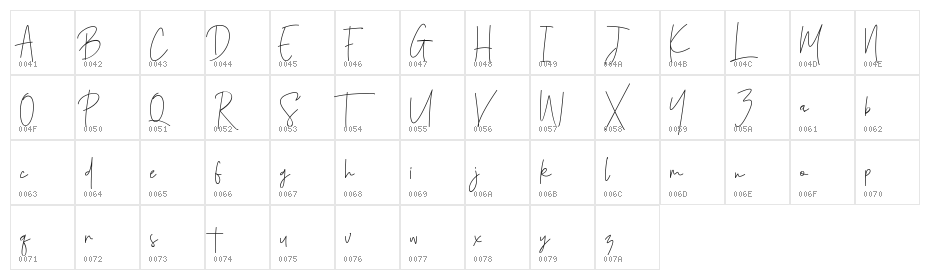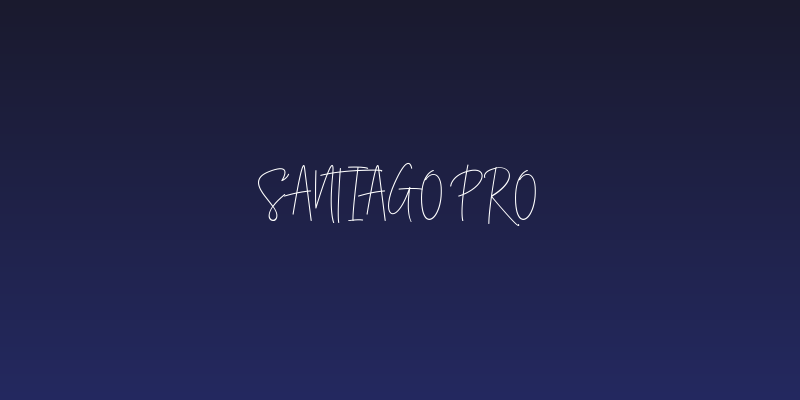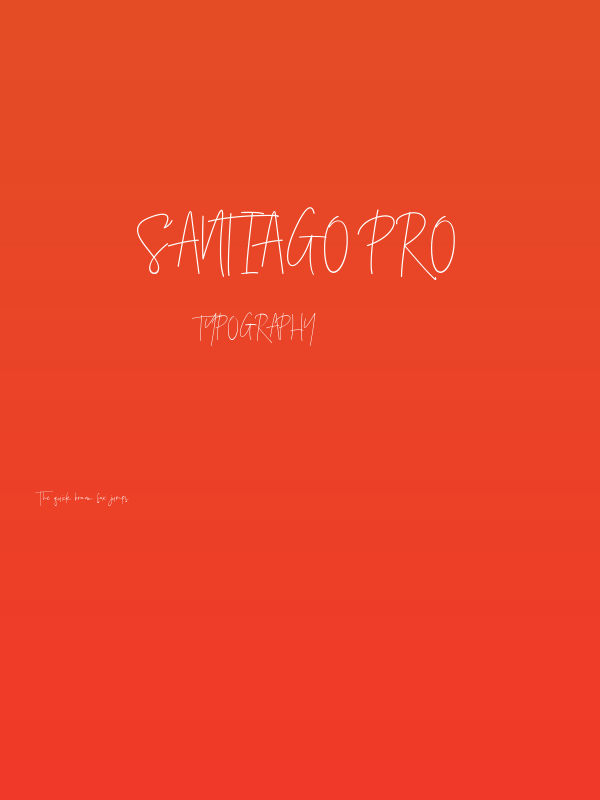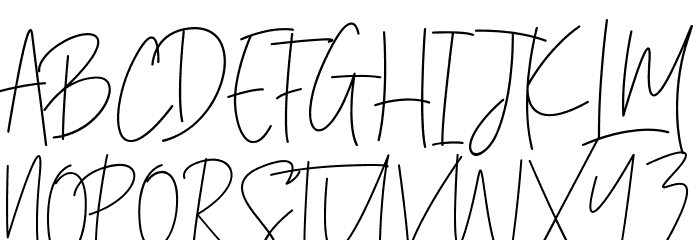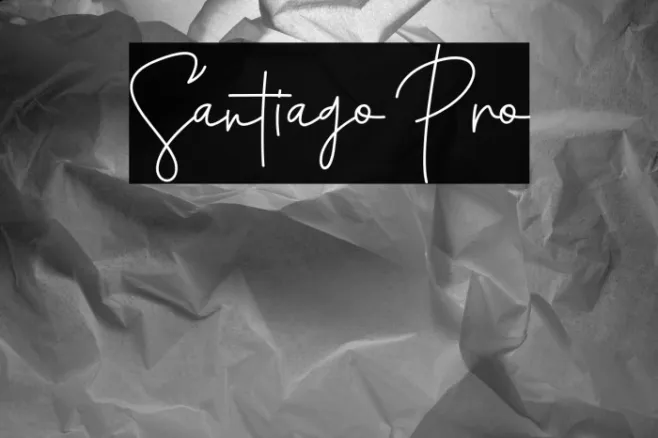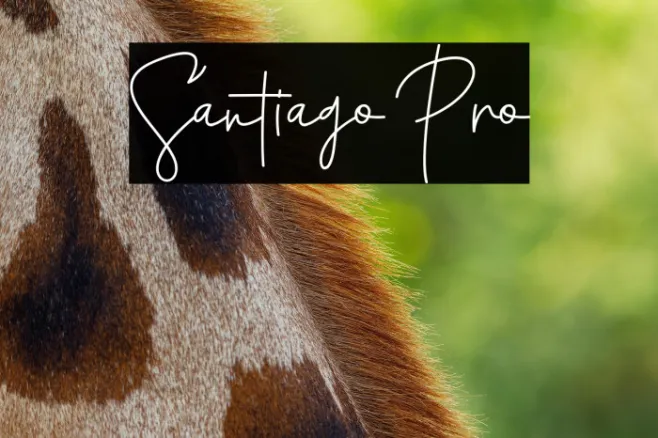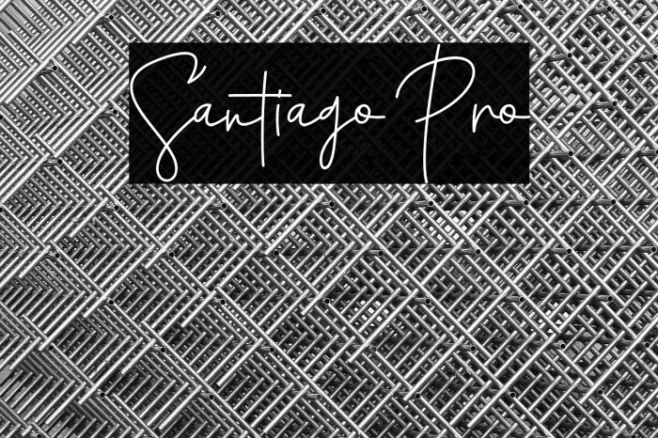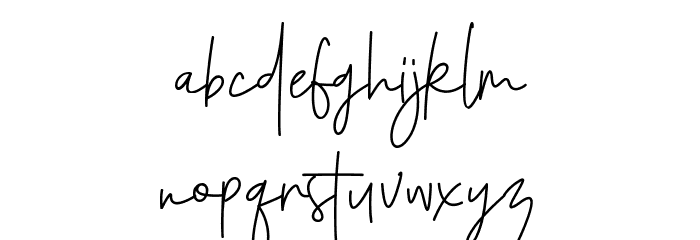
Santiago Pro Font
Santiago Pro Description
This font features a unique, handwritten style with a playful and artistic flair. The uppercase letters are tall and slender, with a whimsical touch that adds character and personality. The lowercase letters maintain a consistent flow, enhancing the font's casual and approachable feel. The strokes are thin and delicate, giving the font an airy and light appearance. The numbers and special characters are designed to complement the letters, maintaining the same playful and artistic style. This font is perfect for projects that require a personal and creative touch.
| Use Case | Logos, Invitations, Creative projects |
| Proposed Projects | Ideal for greeting cards, invitations, personal branding, and creative projects that require a personal touch. |